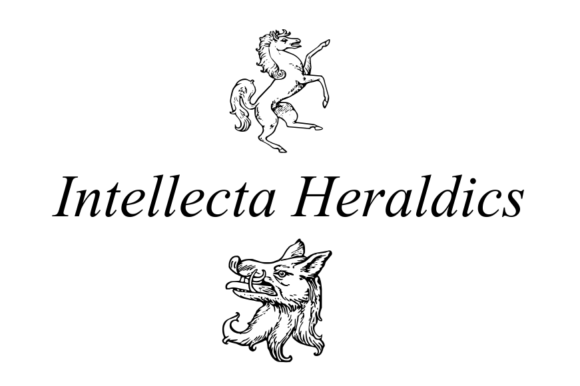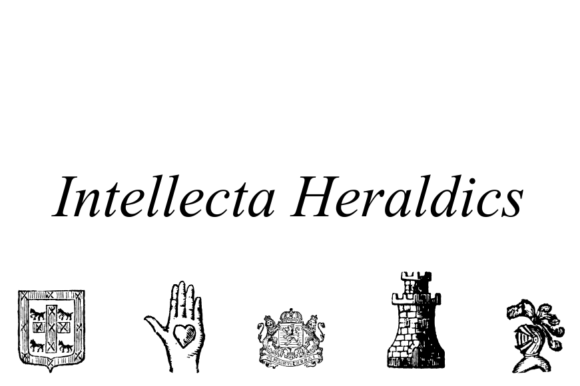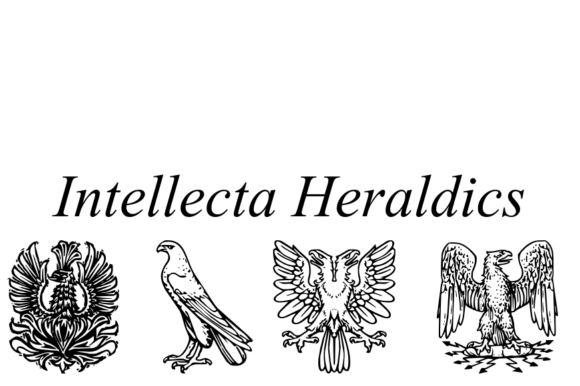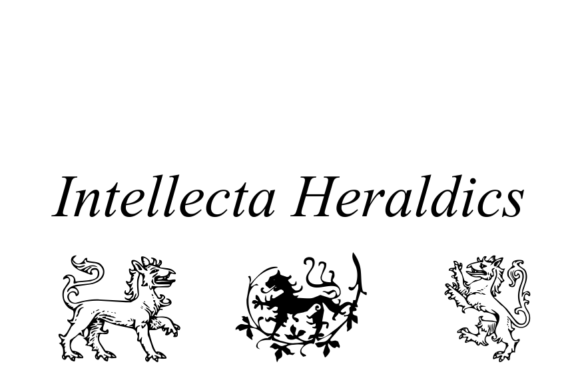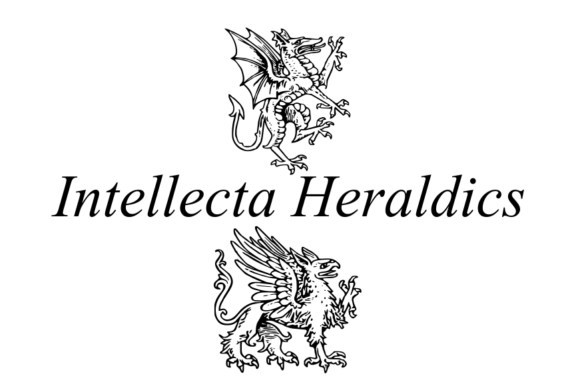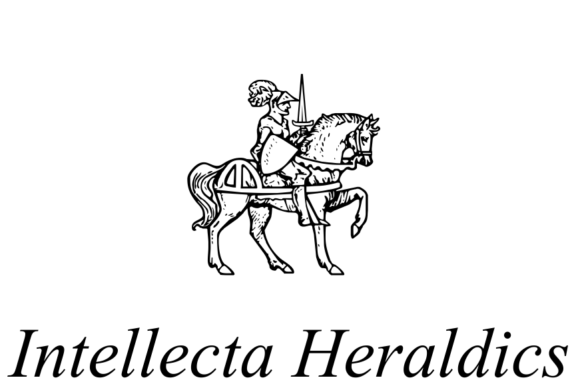
Introduction to Intellecta Heraldics Font
Intellecta Heraldics are vintage and classical heraldic rough elements.
Key Features of Intellecta Heraldics Font